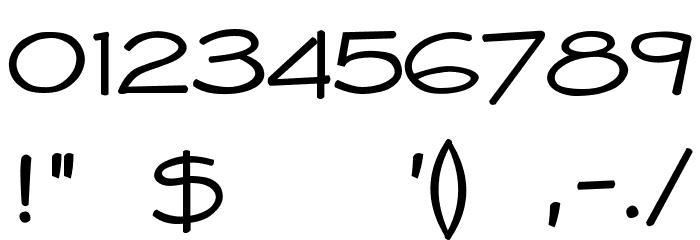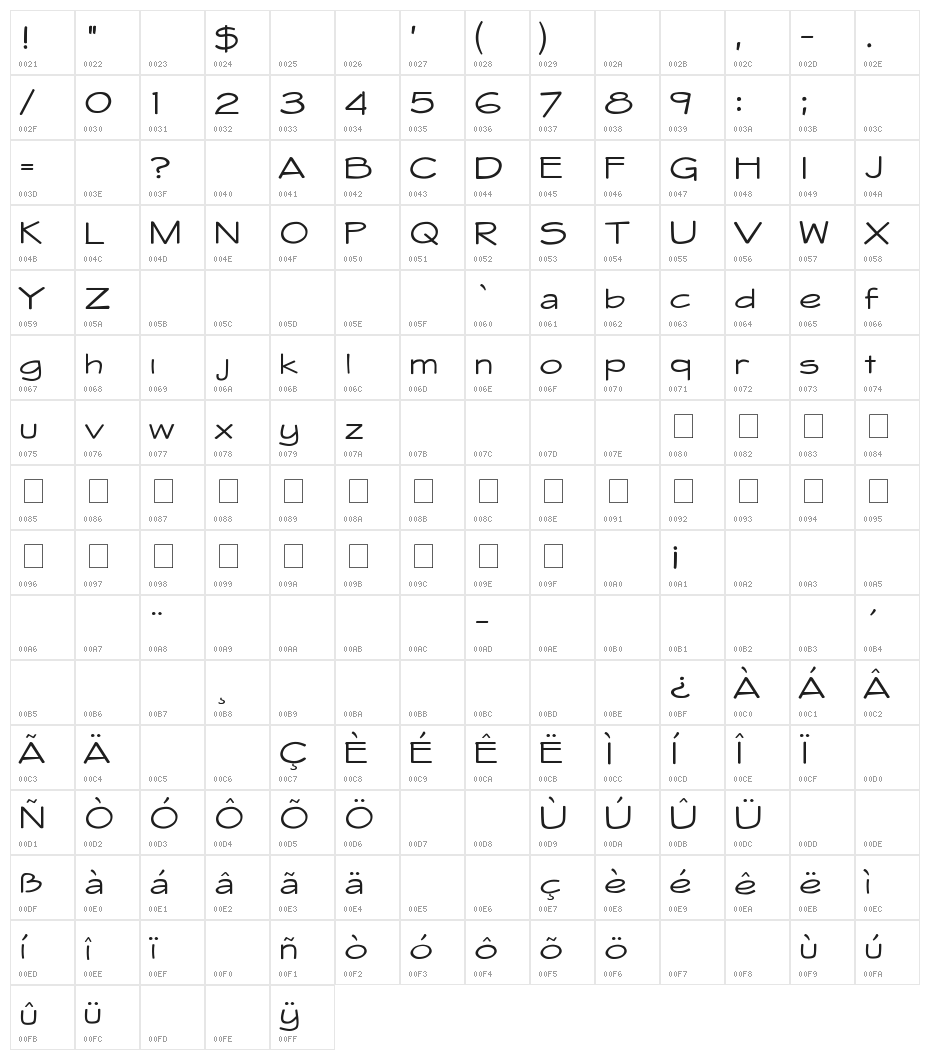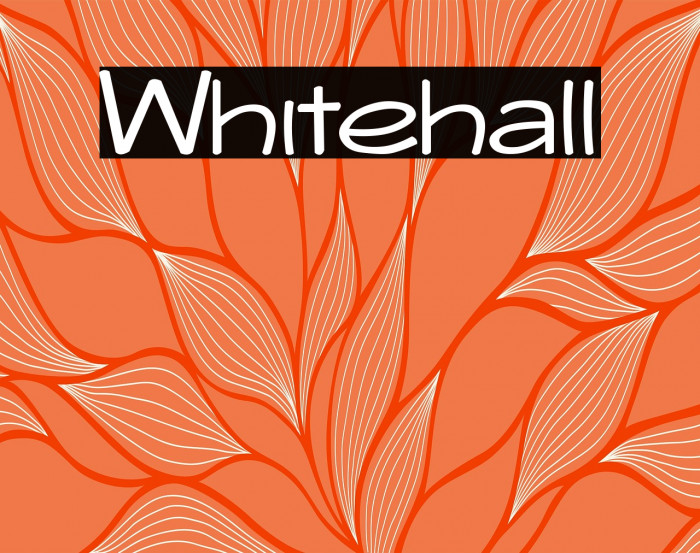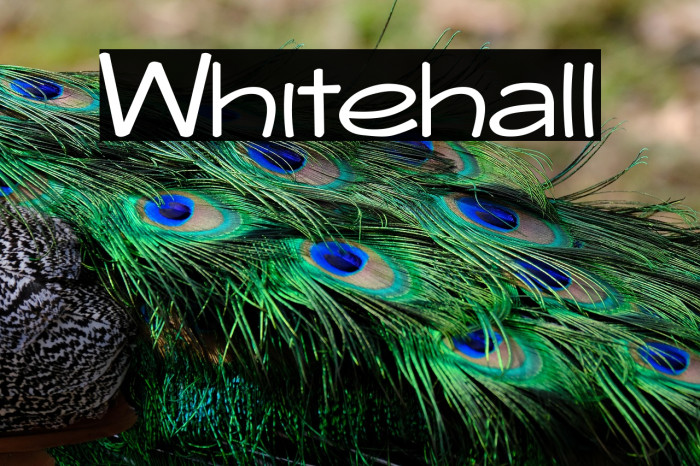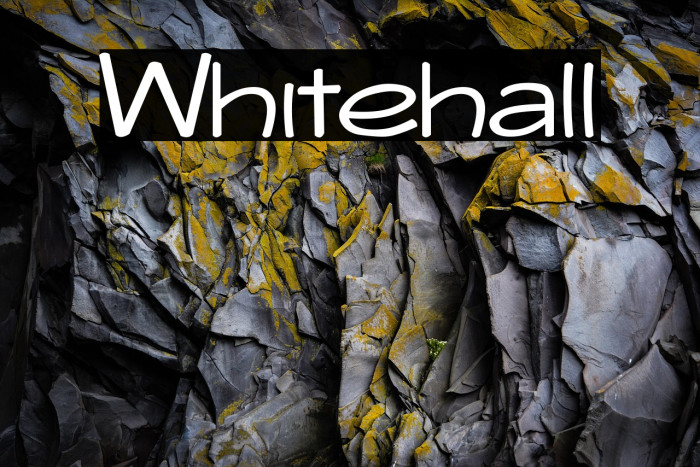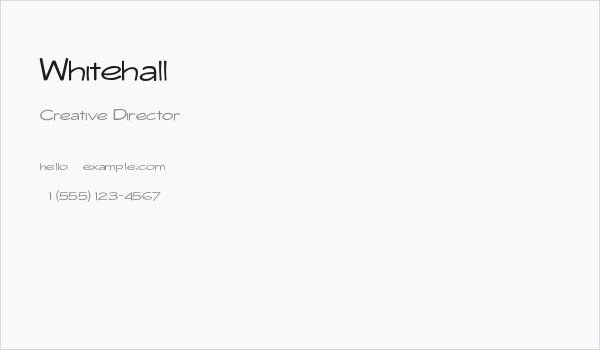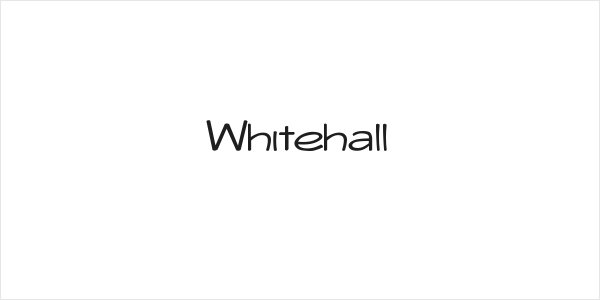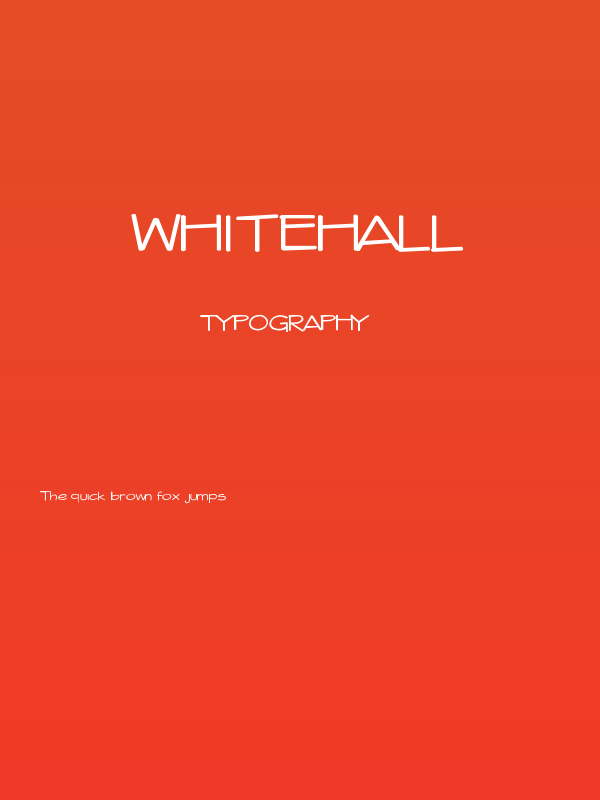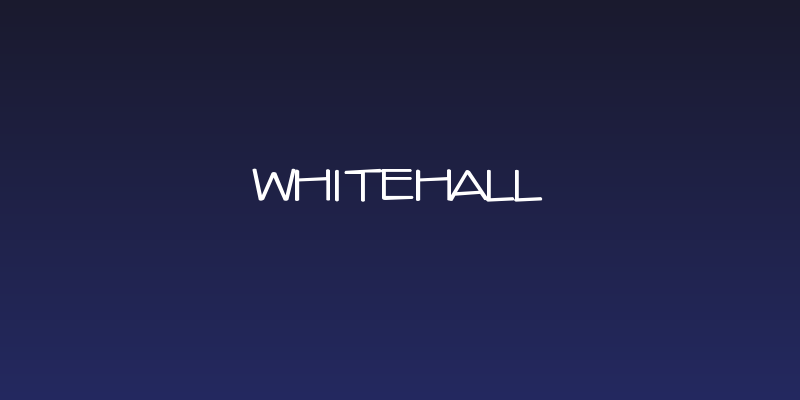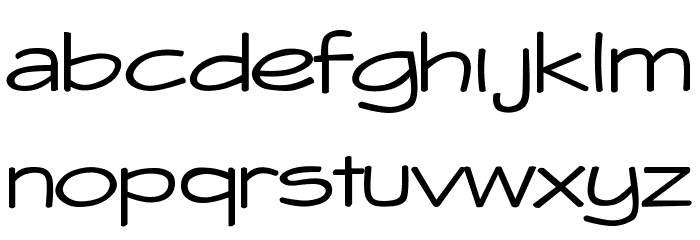
Whitehall Font
Whitehall Description
This font features a playful and rounded style with a casual, handwritten appearance. The characters are slightly elongated with smooth curves and a consistent stroke width, giving it a friendly and approachable feel. The uppercase and lowercase letters maintain a uniform height, while the numerals and special characters are well-integrated, ensuring readability. The overall design is clean and modern, making it suitable for a variety of creative applications. Its simplicity and charm make it ideal for projects that require a personal touch.
| Proposed Projects | Ideal for children's books, greeting cards, playful branding, and informal invitations. |